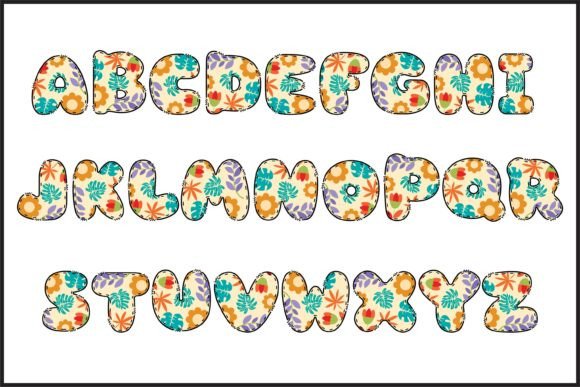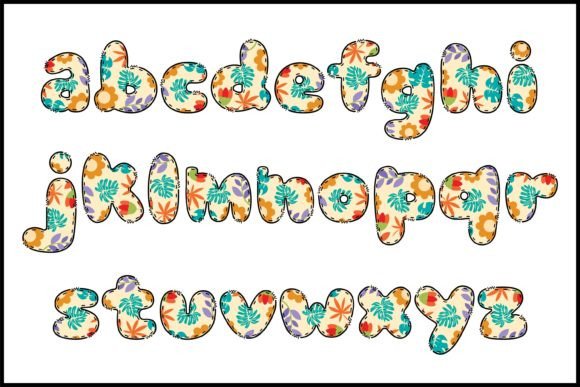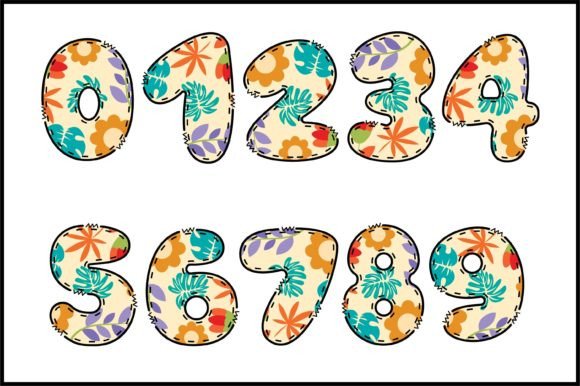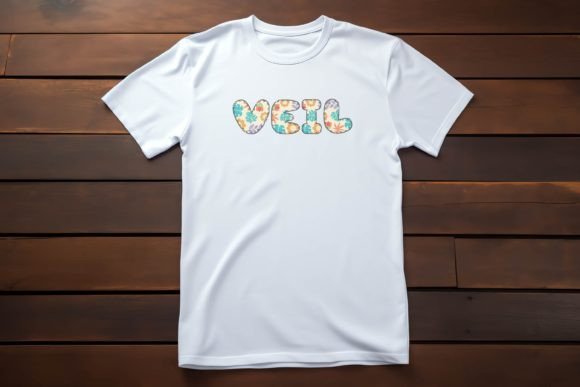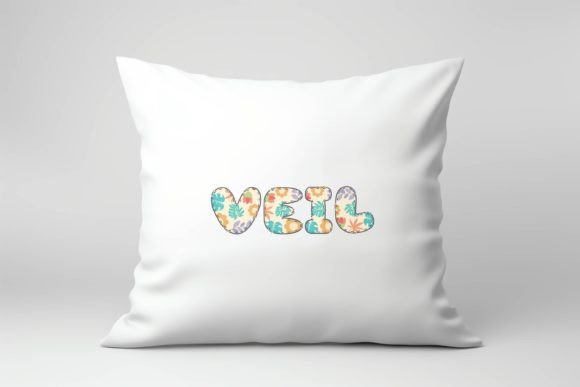
Aloha Font: Adding a Touch of Playfulness to Your Designs
The Aloha Font is a delightful and versatile typeface that can add a playful touch to various design projects. Its unique and artistic feel makes it an excellent choice for designers and crafters looking to create engaging and visually appealing content. In this article, we’ll explore the features and uses of the Aloha Font, as well as its compatibility with different design programs and cutting machines.
Characteristics of the Aloha Font
The Aloha Font is a fun and whimsical typeface that is perfect for designs that require a playful or artistic feel. Its distinctive style makes it an excellent choice for projects such as children’s books, posters, invitations, greeting cards, and more. The font’s unique characteristics include:
- Whimsical and artistic feel
- Playful and fun design
- Suitable for children’s books, posters, invitations, and greeting cards
Uses of the Aloha Font
The Aloha Font is a versatile typeface that can be used in a variety of design projects. Some of the most popular uses of this font include:
- Children’s books: The Aloha Font’s whimsical and playful design makes it an excellent choice for children’s books. Its colorful and engaging style can help create an immersive reading experience for young audiences.
- Posters: The font’s artistic feel makes it perfect for creating eye-catching posters for various events, promotions, or announcements.
- Invitations: The Aloha Font’s playful design makes it an excellent choice for creating invitations for parties, events, or special occasions.
- Greeting cards: The font’s unique style makes it perfect for creating greeting cards for various occasions, such as birthdays, holidays, or congratulations.
Tips for Using the Aloha Font
To get the most out of the Aloha Font, here are some tips to keep in mind:
- Use the font in designs that require a playful or artistic feel.
- Experiment with different colors and textures to enhance the font’s unique style.
- Pair the font with other fonts that complement its playful design.
- Use the font in projects that require a whimsical or fun touch.
The Aloha Font is a delightful and versatile typeface that can add a playful touch to various design projects. Its unique and artistic feel makes it an excellent choice for designers and crafters looking to create engaging and visually appealing content. With its compatibility with different design programs and cutting machines, the Aloha Font is an excellent addition to any designer’s toolkit.